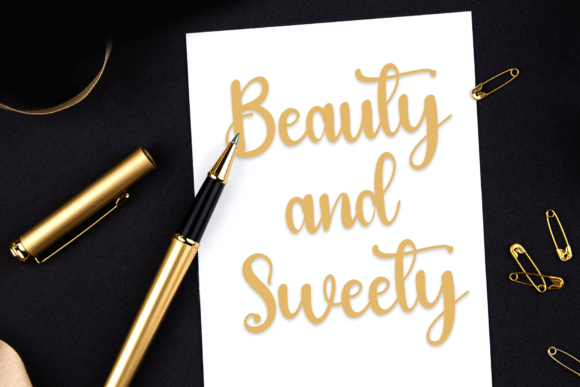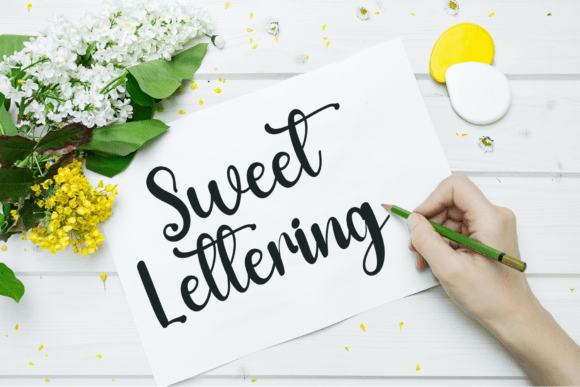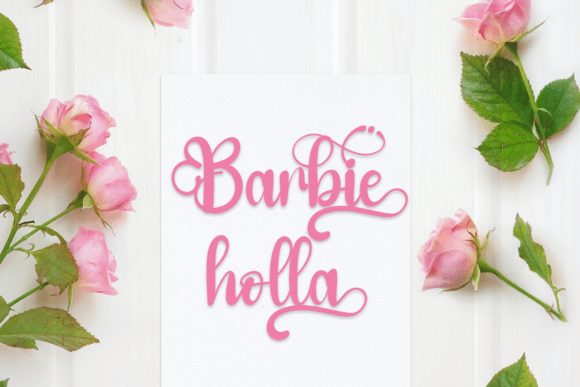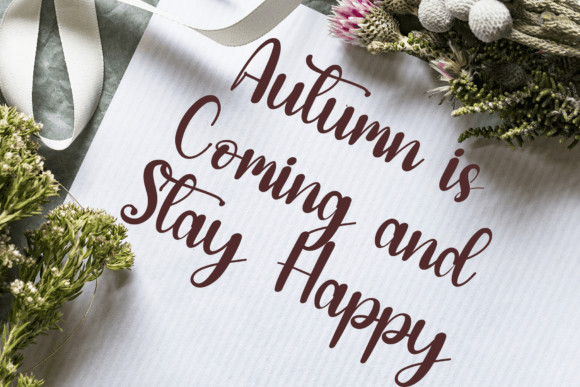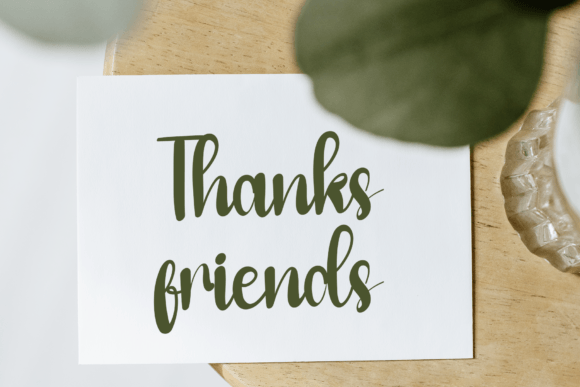
Unleashing Your Creativity with the Barbie Font
There’s nothing quite like the thrill of watching a design come together – the spark of inspiration, the hours of brainstorming, and finally, the moment when everything falls into place. For designers, it’s that feeling of satisfaction that keeps us going, and it’s exactly what the Barbie Font is designed to evoke.
With its timeless classic calligraphy inspiration and impeccable form, the Barbie Font is a stylish handwritten font that adds a touch of elegance to any project. Its balanced and varied design makes it perfect for enhancing the beauty of your work, whether you’re creating a wedding invitation, a logo, or a social media graphic.
Key Features of Barbie Font
- Font Family: Barbie Font is a custom font designed by Mattel, the manufacturer of Barbie dolls. It is not a standard font family, but rather a unique font used for the Barbie brand.
- Unique Characteristics: The Barbie Font is known for its playful, cursive style, which is reminiscent of the iconic Barbie doll logo. It features a range of decorative flourishes and swashes that add to its unique charm.
Barbie Font Review
Overall, the Barbie Font is a unique and eye-catching font that’s perfect for playful and feminine projects. ✨ I love how it captures the essence of the iconic Barbie brand, and it’s sure to add a touch of whimsy to any design.
The font’s best features include:
- Its elegant and flowing lines, which make it perfect for fashion and beauty designs
- ⚠️ The font may not be suitable for more serious or corporate projects, as it’s quite playful and may come across as immature
- ⚠️ The font is not as customizable as some other fonts on the market, which may limit its use in certain design scenarios
In conclusion, the Barbie Font is a fun and engaging font that’s perfect for designers looking to add a touch of personality to their projects. While it may have some limitations, its unique style and versatility make it a great addition to any designer’s toolkit.
To get the most out of the Barbie Font, try using it in combination with other playful and colorful elements, such as bright colors and fun graphics.
Experiment with different font sizes and styles to create visual interest and emphasize important text.
The Barbie Font is commonly used in:
- Toy packaging and branding Alternatives to Barbie Font
- Choose a bright color palette to match the retro vibe.
- Design the invitation layout with the Barbie Font as the main text element.
- Add vintage-inspired graphics and patterns to complement the font.
- Pair the font with distressed textures and metallic accents for a glamorous look.
- Use bold, cursive fonts alongside the Barbie Font to create a contrasting effect.
- Choose a color scheme that reflects the brand’s personality and aesthetic.
- Design the logo by incorporating the Barbie Font in a stylized or abstract way.
- Add visual elements that reflect the brand’s values and mission.
- Pair the font with bold, geometric shapes to create a modern and edgy look.
- Use watercolor effects and subtle gradients to soften the font’s edges.